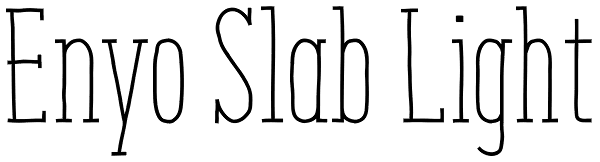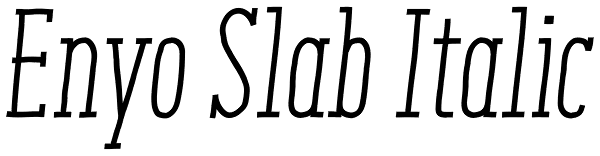
Enyo
Enyo is a decorative, display, serif handwritten font. This font will provide an informal look to your work! It can be used for small ammount of text, and specially for display usage because of its glyph quality. Enyo offers OpenType features...